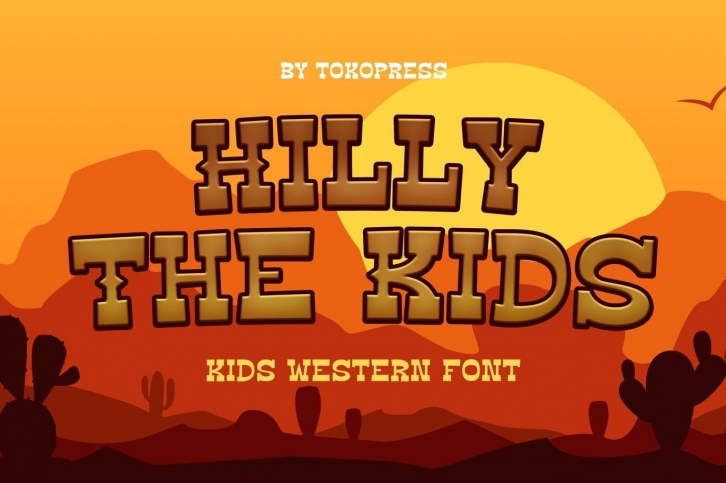
Hilly the Kids is a cool, fun and western looking display font. Whether you use it for cartoon related designs, children games or just any creation that requires a lovely touch, this font will be an amazing choice.